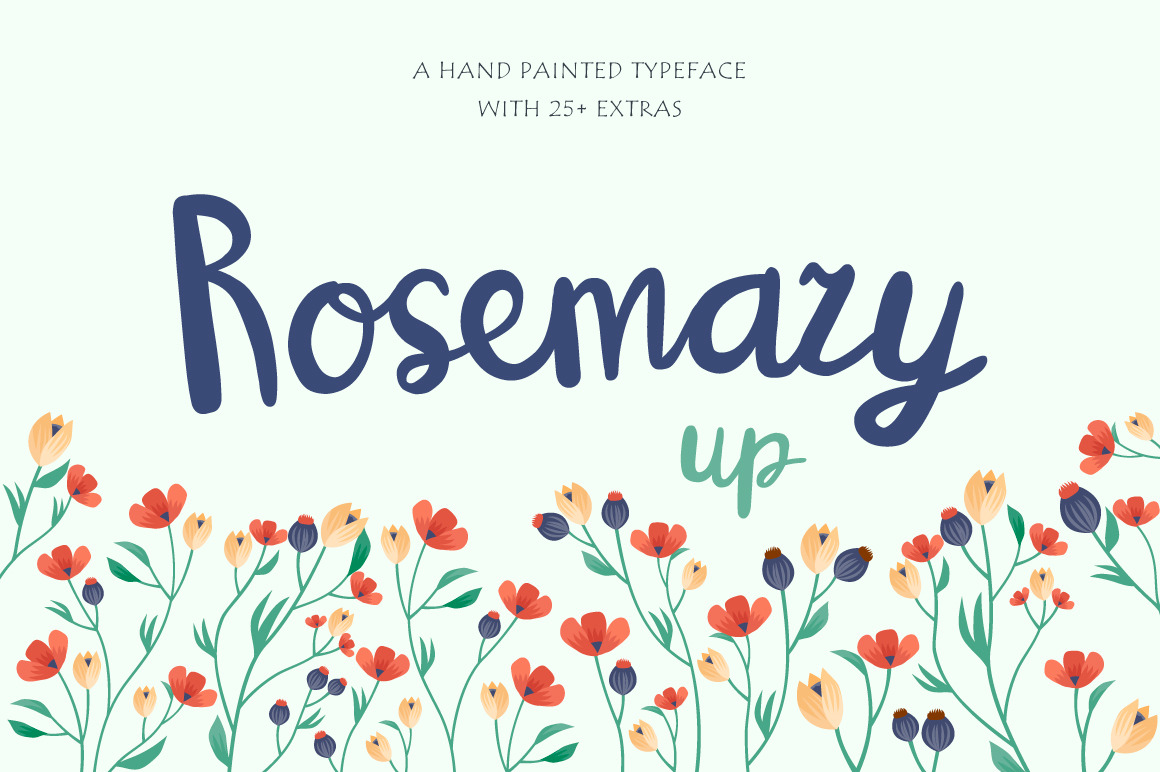
RosemaryUP script font + extras
Font: RosemaryUp is a hand-drawn script font, designed to allow you to create stunning lettering quickly and efficiently. The script version comes as lowercase and uppercase that are perfectly connected together. Extras: The pack includes amazing floral vector patterns and fabulous high-res photos of flowers from faraway of Alpine meadows.
Perfect for : using in lettering, watercolor based designs, postcards and good-mood vector illustrations :)